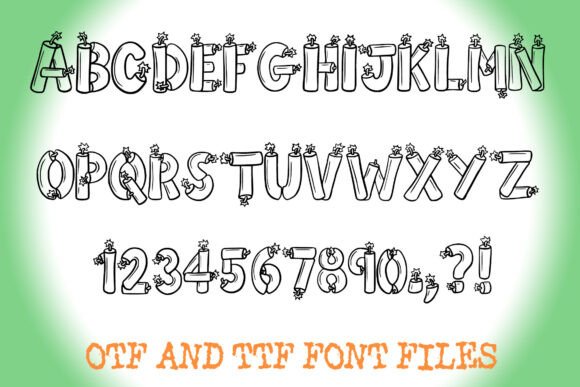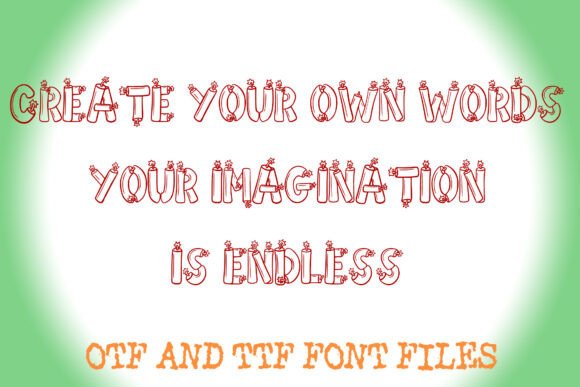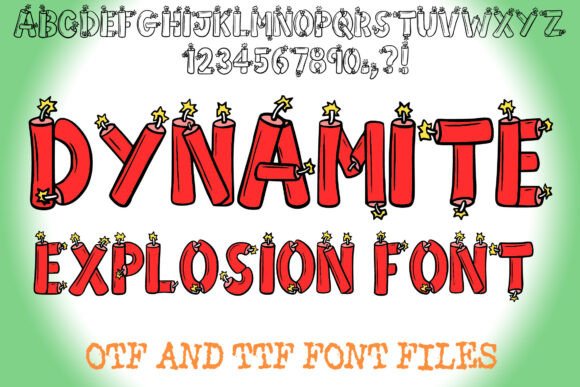
Dynamite Explosion Font: Adding a Blast of Quirkiness to Your Designs
Are you tired of using the same old fonts in your designs? Look no further than the Dynamite Explosion Font, a quirky and versatile font that’s sure to add a bang to your creative projects. In this article, we’ll explore the features and benefits of this unique font, and show you how to make the most of it in your designs.
What is Dynamite Explosion Font?
Dynamite Explosion Font, also known as Dynamite Explosion Lettering ABC Text Font Alphabet PNG Type, is a one-of-a-kind font that’s designed to resemble explosive dynamite letters. With its bold, colorful, and slightly irregular design, this font is perfect for adding a touch of whimsy and playfulness to your designs.
Key Features of Dynamite Explosion Font
- Unique Design: The Dynamite Explosion Font features a distinctive design that’s reminiscent of exploding dynamite. Each letter is carefully crafted to resemble a burst of colorful energy.
- Quirky and Playful: This font is perfect for designers who want to add a touch of quirkiness and playfulness to their designs. It’s ideal for projects that require a bit of humor and personality.
- Versatile: Despite its bold design, the Dynamite Explosion Font is surprisingly versatile. It can be used in a wide range of contexts, from children’s party invitations to bold advertising campaigns.
Benefits of Using Dynamite Explosion Font
So why should you choose the Dynamite Explosion Font for your next design project? Here are just a few benefits of using this unique font:
- Adds Visual Interest: The Dynamite Explosion Font is sure to grab attention and add visual interest to your designs. Its bold, colorful design is perfect for making a statement.
- Conveys Energy and Excitement: The font’s explosive design conveys energy and excitement, making it perfect for projects that require a dynamic and attention-grabbing approach.
Design Ideas Using Dynamite Explosion Font
So how can you use the Dynamite Explosion Font in your designs? Here are a few ideas to get you started:
- Children’s Party Invitations: The font’s playful design makes it perfect for children’s party invitations, birthday cards, and other kid-friendly projects.
- Advertising Campaigns: The Dynamite Explosion Font’s bold design makes it ideal for advertising campaigns that require a attention-grabbing approach.
- Social Media Graphics: Use the font to create eye-catching social media graphics, including Facebook posts, Twitter headers, and Instagram stories.
- Logos and Branding: The font’s unique design makes it perfect for logos and branding projects that require a bold and memorable approach.
Tips for Using Dynamite Explosion Font
To get the most out of the Dynamite Explosion Font, here are a few tips to keep in mind:
- Use it Sparingly: While the font is bold and attention-grabbing, it can be overwhelming if used excessively. Use it sparingly to add emphasis and visual interest to your designs.
- Experiment with Colors: The font’s design looks great in a variety of colors. Experiment with different color schemes to find the one that works best for your project.
- Pair it with Other Fonts: The Dynamite Explosion Font pairs well with other fonts, including sans-serif and script fonts. Experiment with different font combinations to find the one that works best for your project.
The Dynamite Explosion Font is a unique and versatile font that’s perfect for designers who want to add a touch of quirkiness and playfulness to their designs. With its bold, colorful design and easy-to-use PNG format, this font is sure to add a bang to your creative projects. Whether you’re designing children’s party invitations, advertising campaigns, or social media graphics, the Dynamite Explosion Font is a great choice.